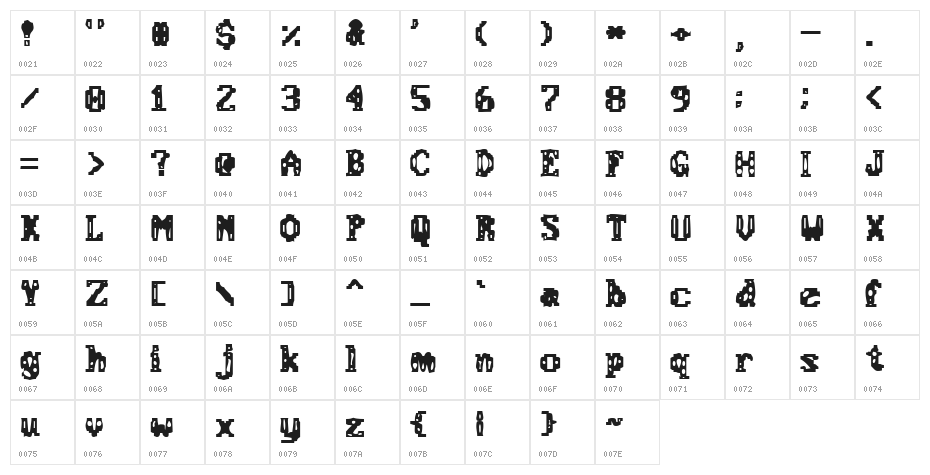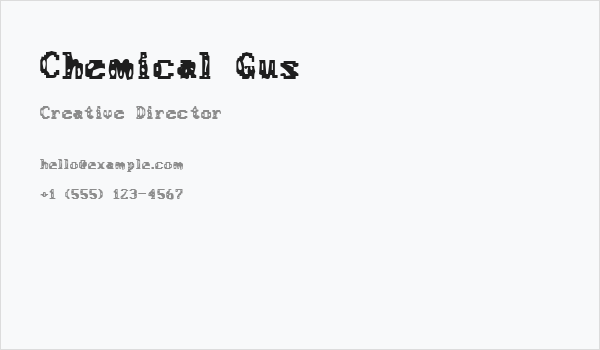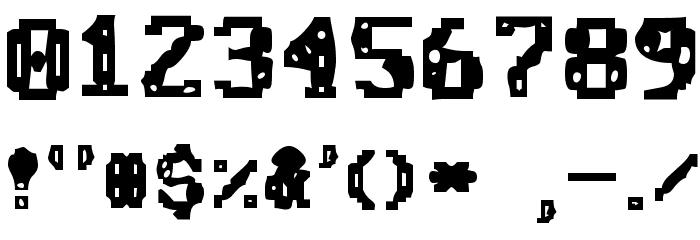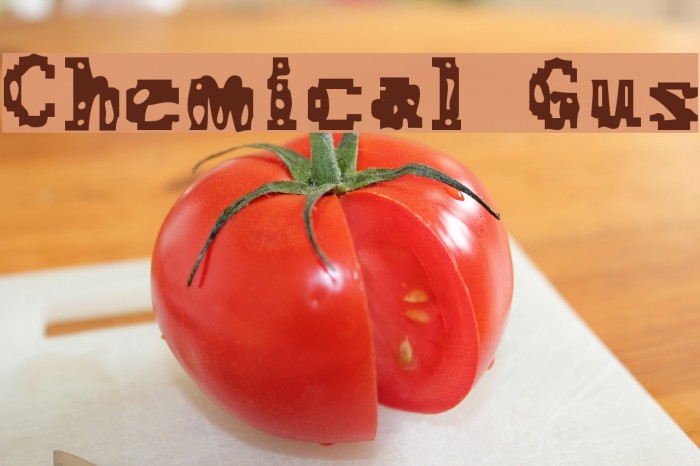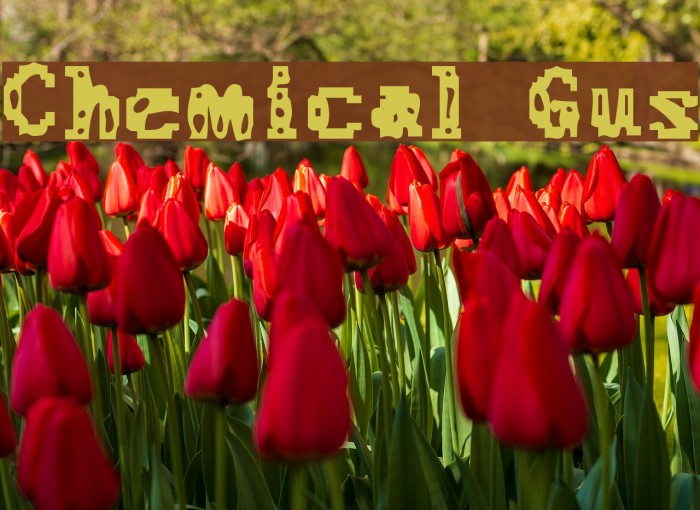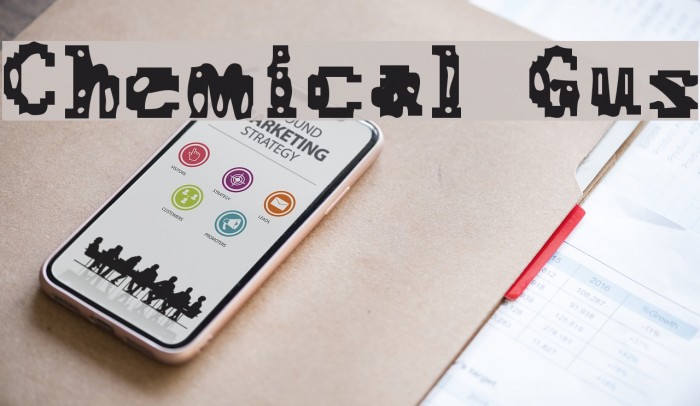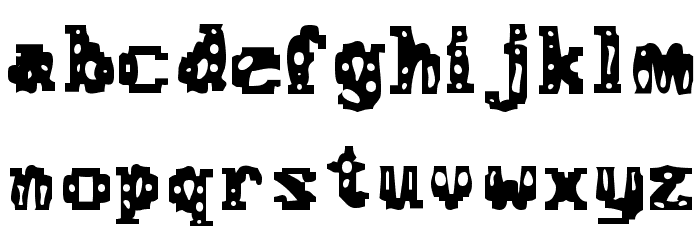
Chemical Gus Font
Chemical Gus Description
This font features a bold and playful design with a unique chemical theme. Each character is crafted with irregular, bubbly shapes that resemble chemical structures or molecules, giving it a distinct and quirky appearance. The uppercase and lowercase letters maintain a consistent style, with exaggerated curves and angles that add to its whimsical nature. Numbers and special characters follow the same thematic design, ensuring a cohesive look across all glyphs. The font's bold weight and decorative elements make it stand out, ideal for projects that require a fun and eye-catching typeface.
| Proposed Projects | Ideal for science-themed posters, educational materials, children's books, and playful branding. |